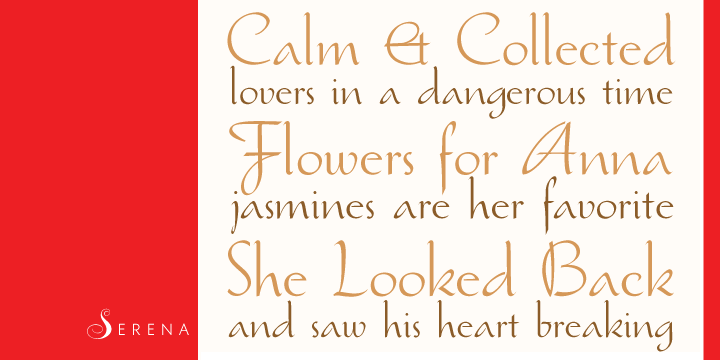
Serena is a script font published by Canada Type.
The story of Serena is a unique one among revivals. Serena was neither a metal face nor a film one. In fact it never went anywhere beyond Stefan Schlesinger’s 1940-41 initial sketches (which he called Saranna). A year later, while working with Dick Dooijes on the Rondo typeface, Schlesinger was sent to a concentration camp where he died, along with any material prospects for the gorgeous letters he’d drawn.
The only sketches left of Schlesinger’s Saranna work are found in the archives of the Drukkerij Trio (the owner of which was Schlesinger’s brother-in-law). The sketches were done in pencil and ink over pencil on four sheets of paper.
And now Hans van Maanen revives Schlesinger’s spirit as closely as the drawings permit, and elaborately expands the work to cover a multitude of codepages and languages. It took more than 65 years for Schlesinger’s drawings to see the light, so van Maanen made sure to bring them to life stylishly and respectfully.
Serena embodies the peace and calm rarely ever found in mainstream calligraphy or other genres of display type. With upright elegance and a slight Eastern touch, this typeface expertly bridges the gracefully casual with the deeply spiritual. The light and soft letter forms add a pleasant, breezy element to anything they touch. When used sparingly in titling or display, Serena is like a sigh of desire, rare but quite memorable and very appreciated.